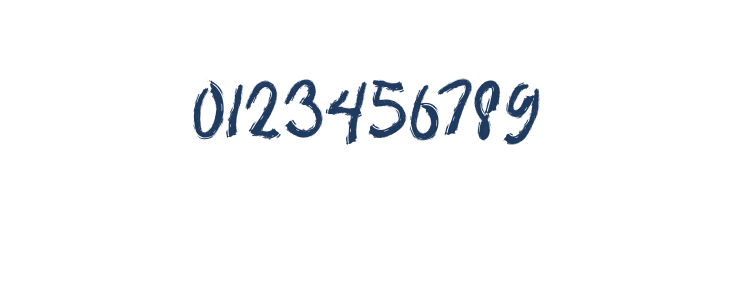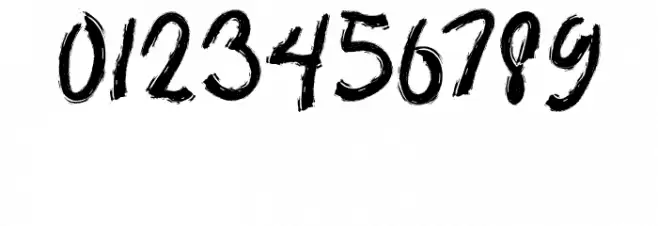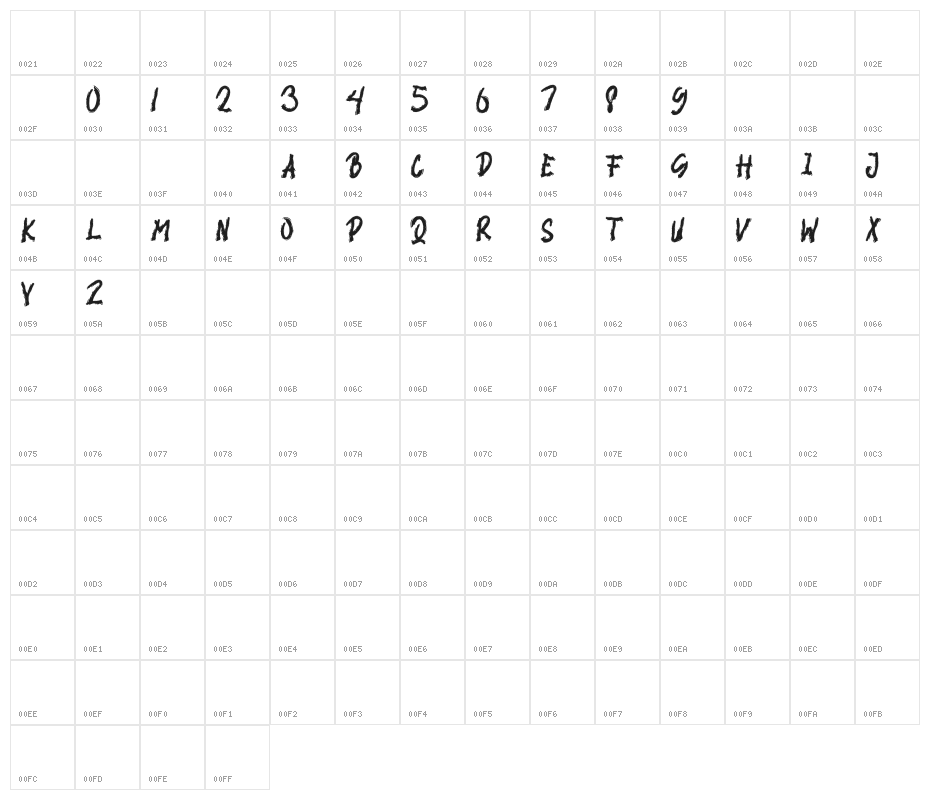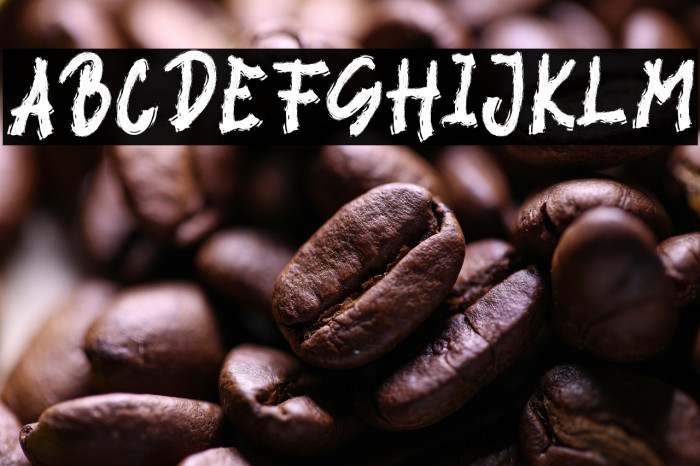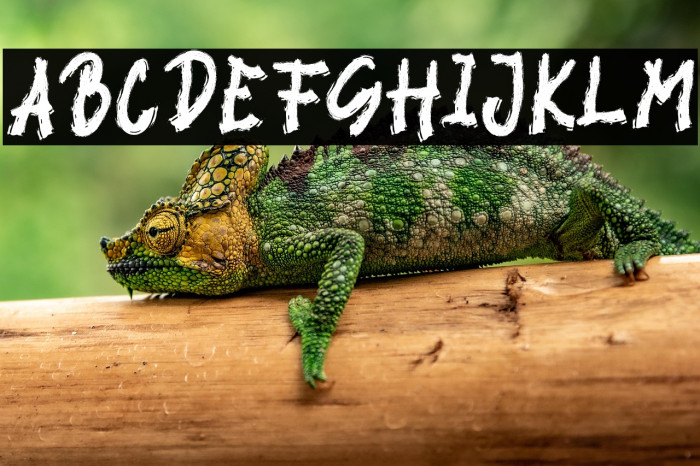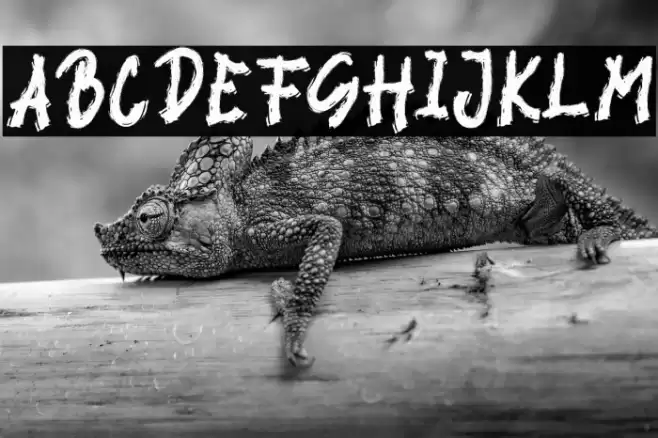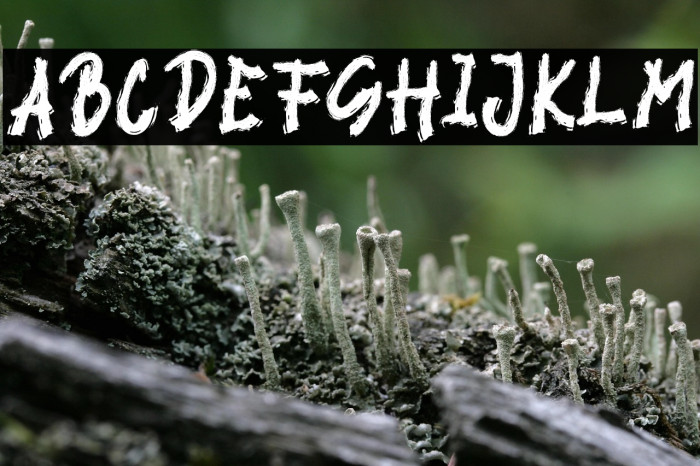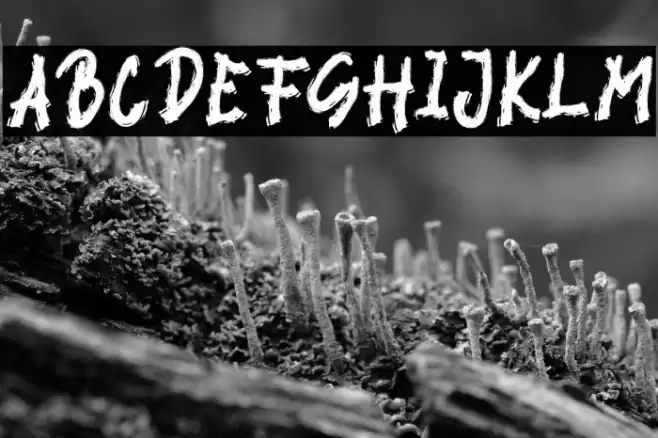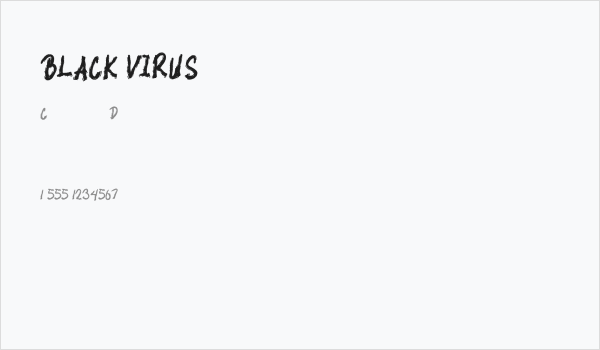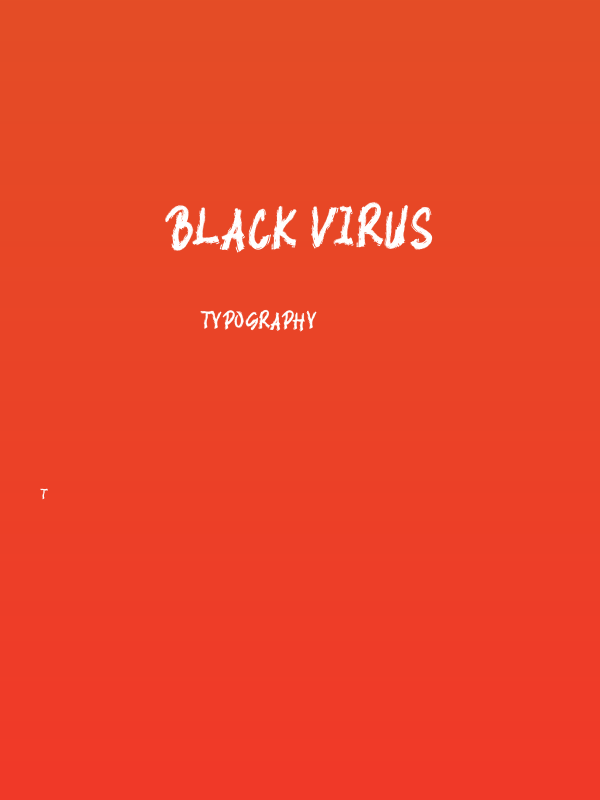
BLACK VIRUS Font
BLACK VIRUS Description
This font features a bold, expressive style with a hand-painted appearance. The strokes are uneven and textured, giving it a raw and dynamic feel. Each character is distinct, with varying thicknesses and a slightly rough edge, reminiscent of brush strokes. The uppercase letters are particularly striking, with a sense of movement and energy. The numbers maintain the same artistic flair, ensuring consistency across the set. This font is ideal for projects that require a strong visual impact and a touch of artistic flair.
| Proposed Projects | Ideal for posters, album covers, street art designs, and branding that requires a bold, artistic touch. |